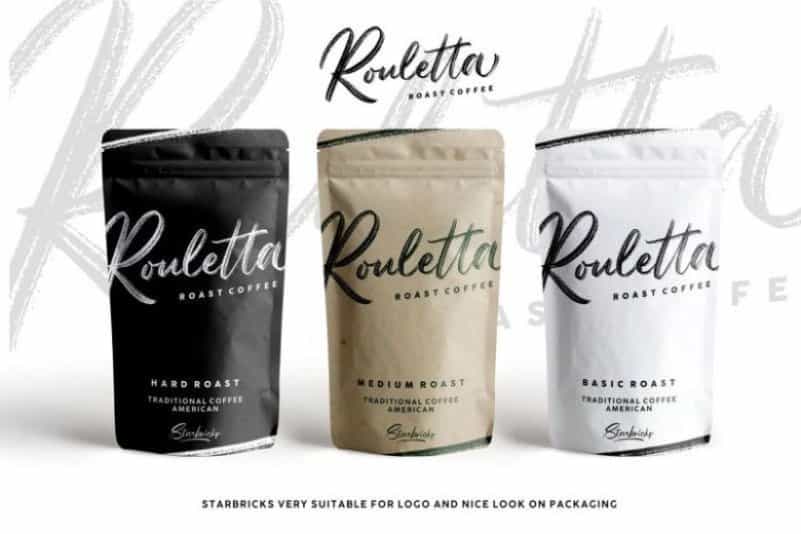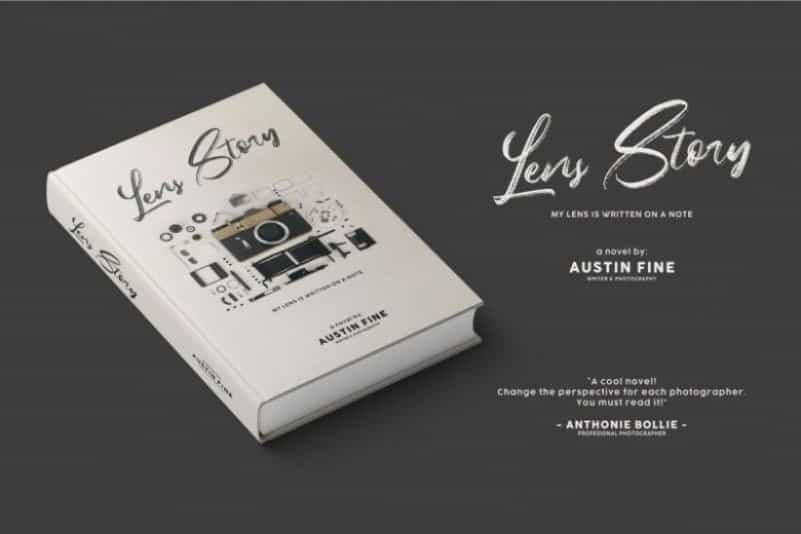
Proudly presents the newest product Starbricks Brush Font! It is designed and distributed by Garisman Std. Starbricks Handbrush Font is created by natural handbrushes. By the means of Opentype, and with the help of a ligature your design will look more beautiful. The file contains Starbricks Fonts and also Swash which you can combine into a wonderful design.